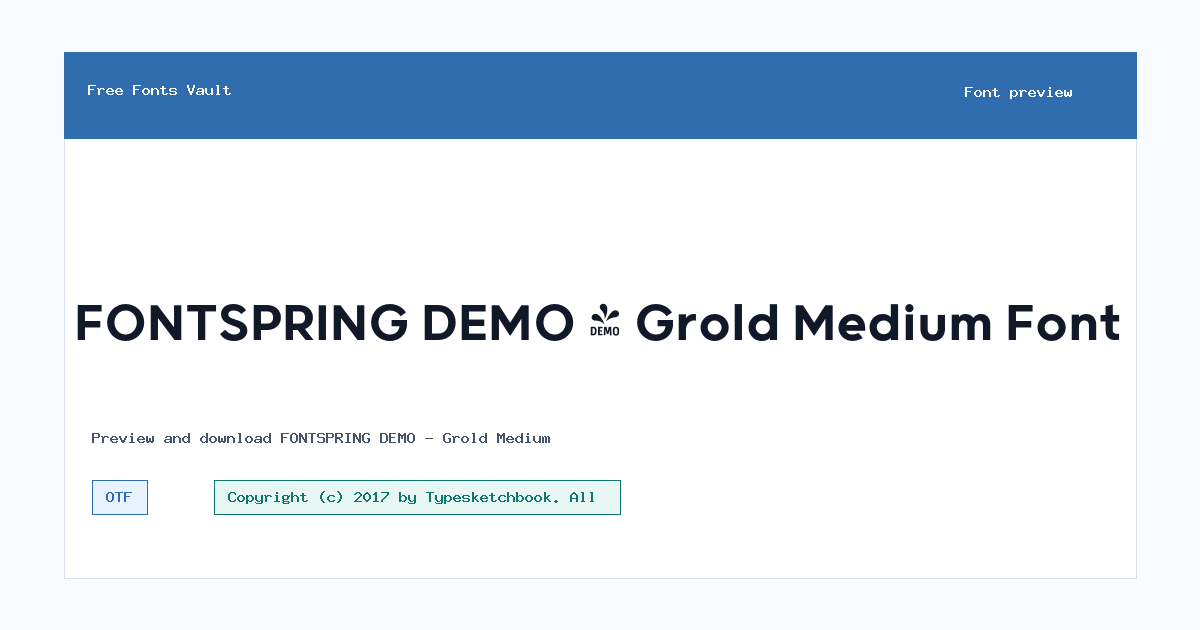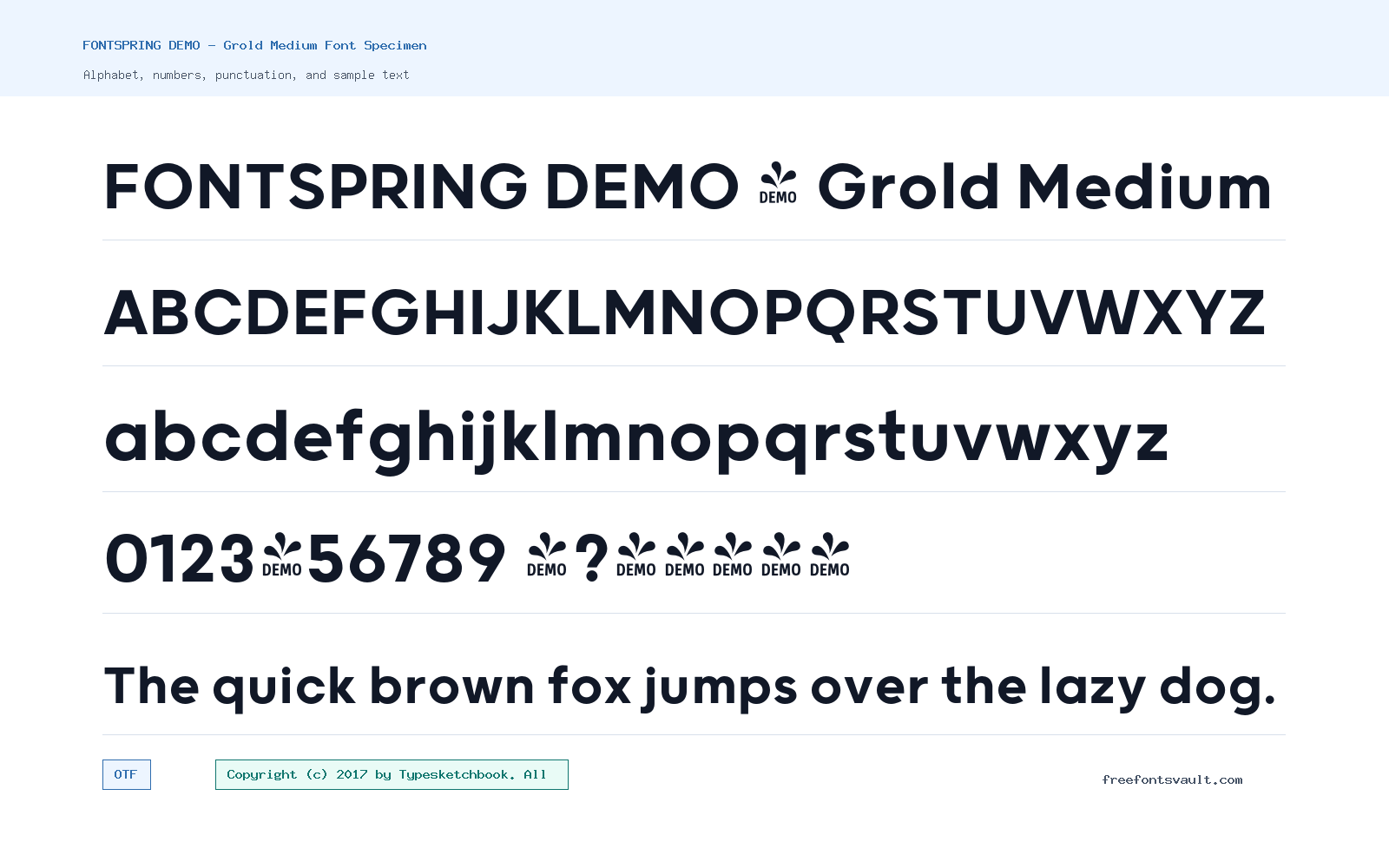
FONTSPRING DEMO - Grold Medium
- Designer Chatnarong Jingsuphatada
- Foundry Typesketchbook
FONTSPRING DEMO – Grold Medium font.
FONTSPRING DEMO – Grold Medium is a demo OTF style from the Grold family by Typesketchbook. It has a rounded sans serif look with a medium weight that feels friendly without becoming too soft.
About FONTSPRING DEMO – Grold Medium
Grold Medium sits in the middle of the family’s weight range, making it useful when you want clear letterforms with more presence than a regular weight. Its rounded shapes work well for short headings, app interface mockups, labels, packaging drafts, social graphics, and branding tests where a clean but approachable tone is needed.
- Rounded sans serif design suited to short display text and interface-style mockups
- Friendly branding drafts and logo direction tests
- App mockups, labels, packaging comps, and social media graphics
Grold is credited to designer Chatnarong Jingsuphatada and published by Typesketchbook.
What type of font is Grold Medium?
Grold Medium is a rounded sans serif style. The medium weight gives it a clear, balanced look for short headings, UI mockups, and branding tests.
Who designed Grold?
Grold is credited to Chatnarong Jingsuphatada and published by Typesketchbook.